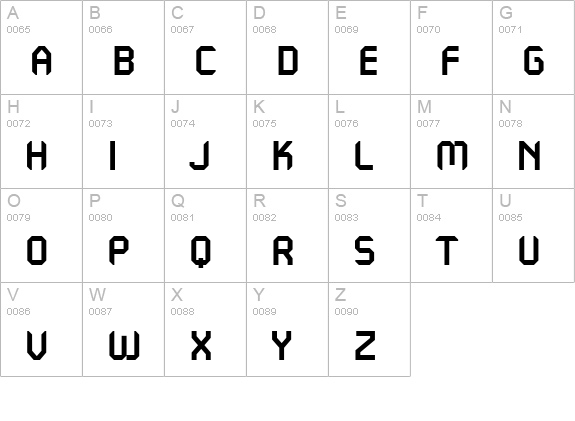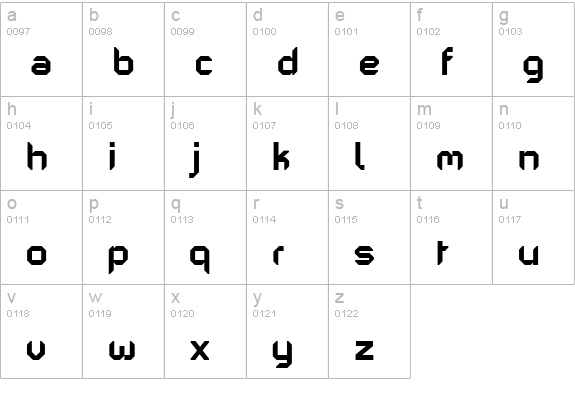
PFMechanicaAPro-Bold is a strong, high-contrast variant in the PFMechanicaAPro typeface family \xE2\x80\x94 well suited to headlines, attention-grabbing titles, and strong calls-to-action.
PFMechanicaAPro-Bold is a modern and bold typeface that exudes strength and sophistication. Its sleek lines and geometric shapes make it perfect for adding a touch of contemporary flair to any design project. This versatile font is ideal for headlines, titles, logos, and other display purposes where you want to make a bold statement. What sets PFMechanicaAPro-Bold apart is not only its striking design but also the fact that it is available for free download at FontsMarket.com. This means that you can easily access this high-quality font without any cost, making it a valuable addition to your font collection. Whether you're a designer looking to elevate your projects or just a typography enthusiast exploring new styles, PFMechanicaAPro-Bold is a must-have font that combines visual impact with accessibility.